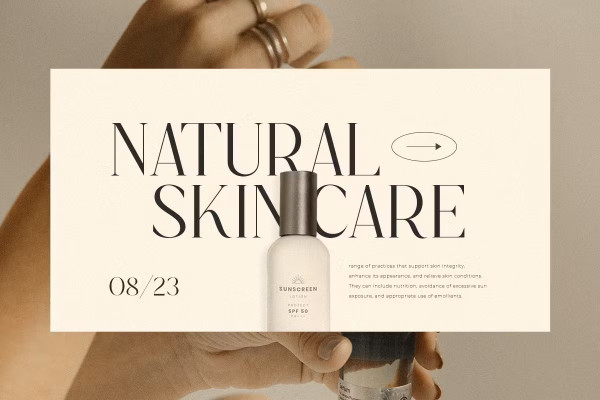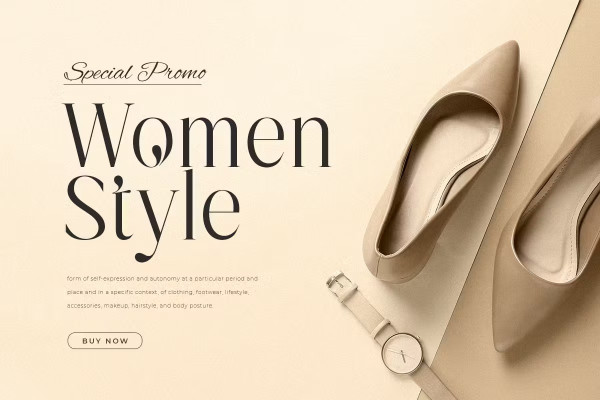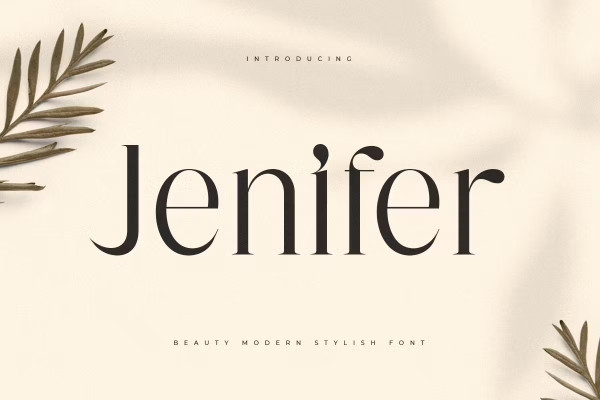
Jenifer Font
Jenifer Font by HamzStudio 27,180 downloads
Jenifer Font
Jenifer Font – Beauty Modern Stylish Font is a well-balanced contemporary font with an elegant, unique and versatile luxury serif, which you can combine to easily get all the unique variations and shapes in seconds, choosing alternatives. This is a moderate contrast serif display font perfect for branding projects, Logo designs, wedding designs, social media posts, advertisements, product packaging, label designs. products, labels, photography, watermarks, invitations, stationery and any other project, she delivers a high standard